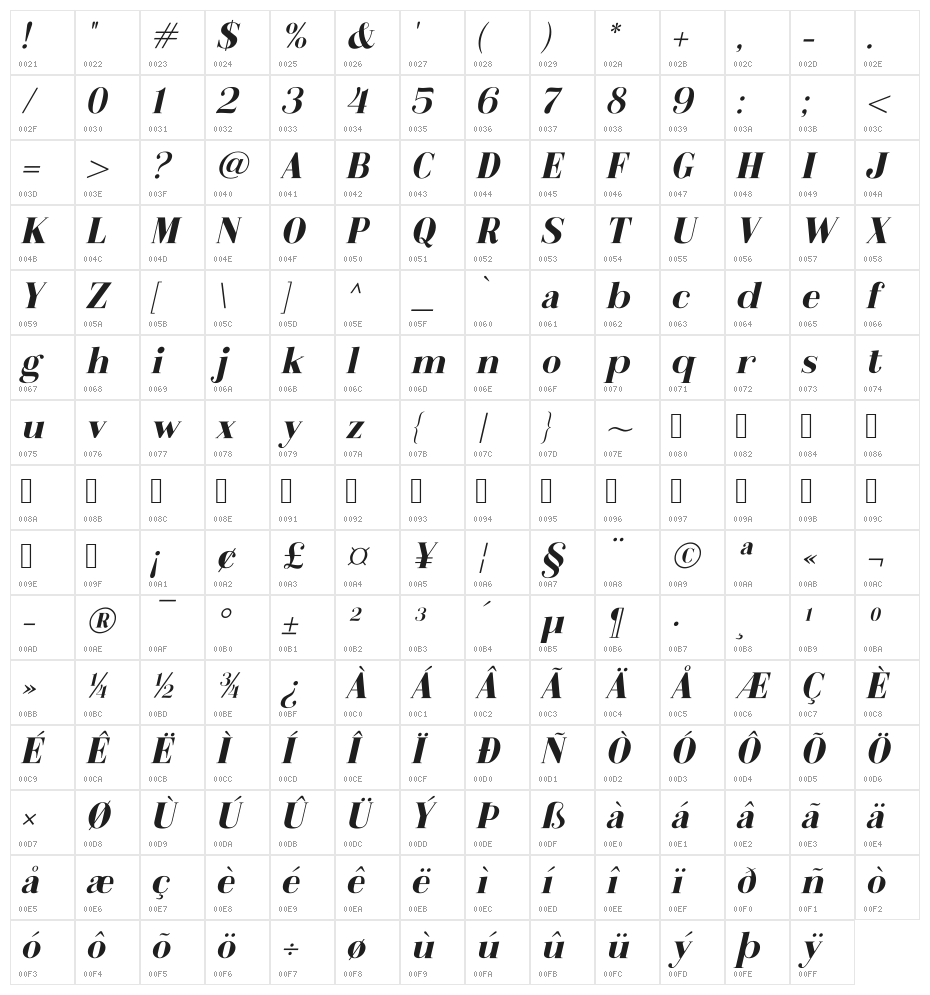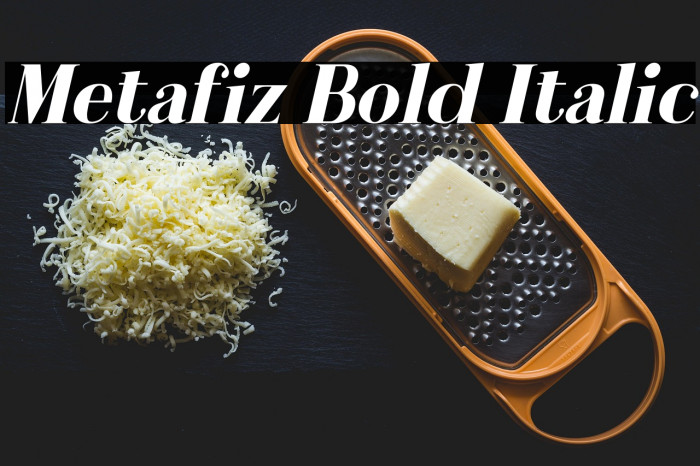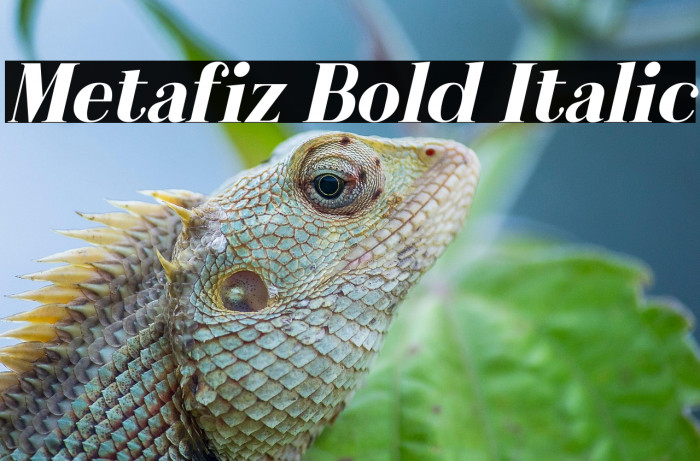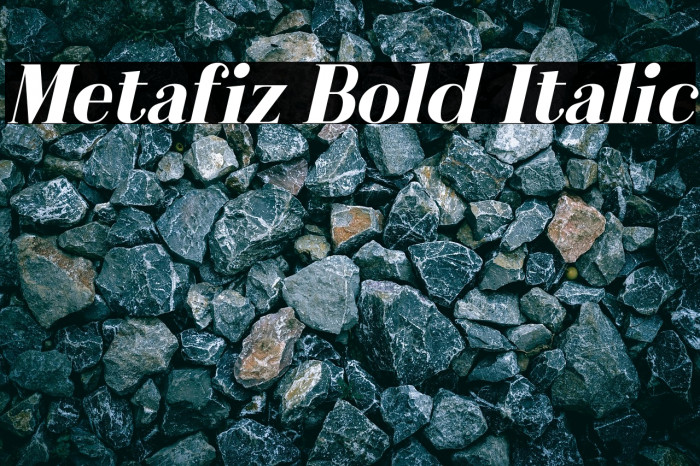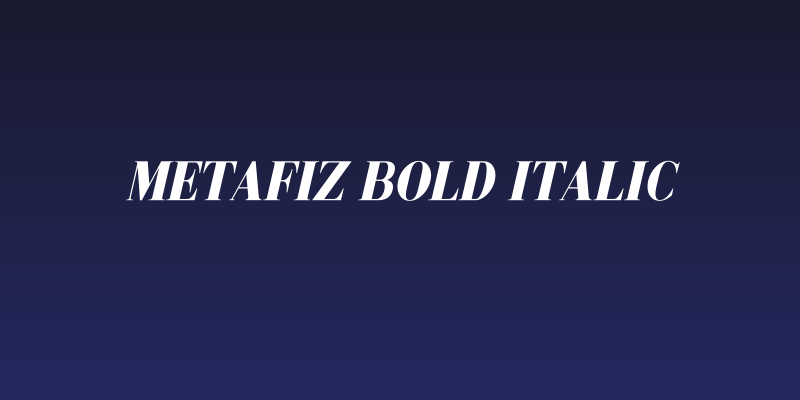
Metafiz Bold Italic Font
Metafiz Bold Italic Description
This font exhibits a bold and italicized style, characterized by its strong and dynamic presence. The letters are slanted, adding a sense of motion and elegance, while the bold weight ensures a commanding appearance. The strokes are thick, providing high contrast between the thick and thin parts of the letters, which enhances readability and impact. The serif design adds a touch of classic sophistication, making it suitable for both modern and traditional applications. The character spacing is tight, contributing to a compact and cohesive look. This font is ideal for making statements, whether in headlines, logos, or other prominent text displays.
| Proposed Projects | Ideal for headlines, branding, advertising, and editorial design. |